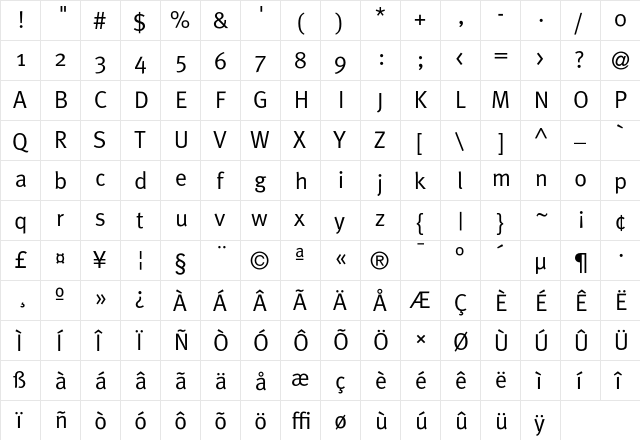
Meta-Normal Regular
Design Context for Meta-Normal Typeface
Meta-Normal takes a measured approach to typography — its balanced proportions and neutral character make it a reliable workhorse for both digital and print work.